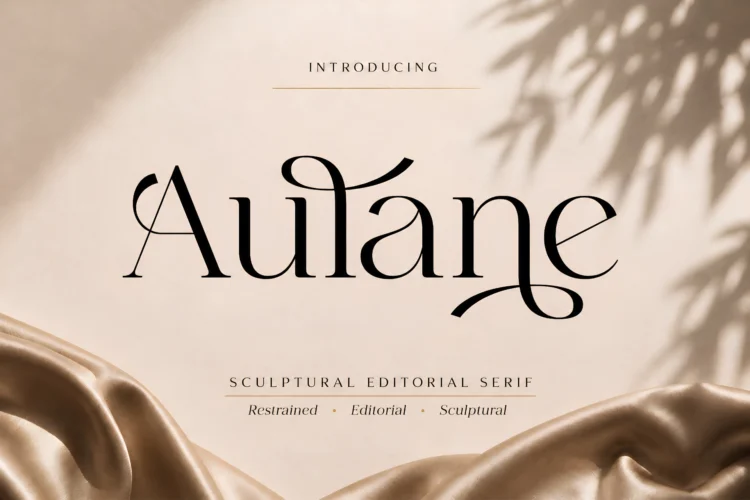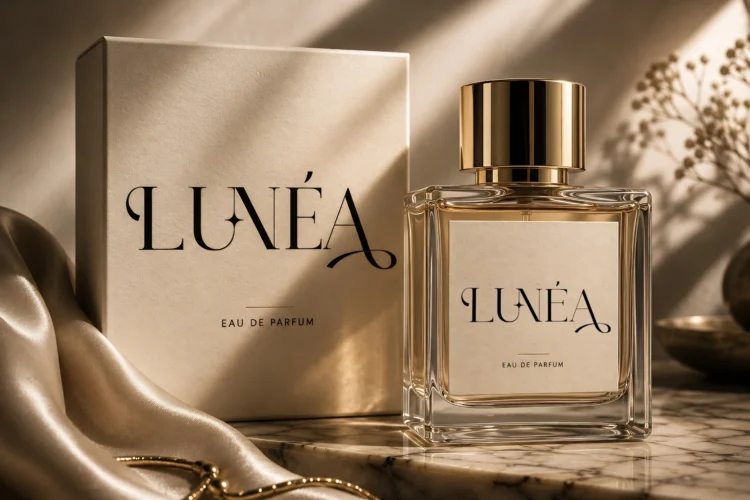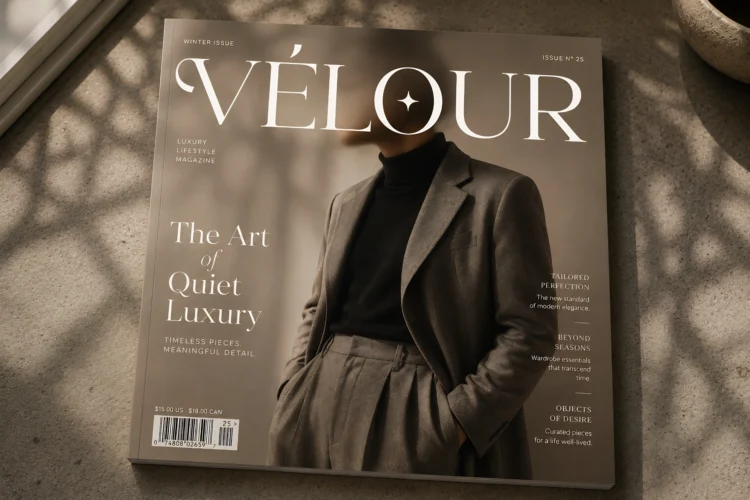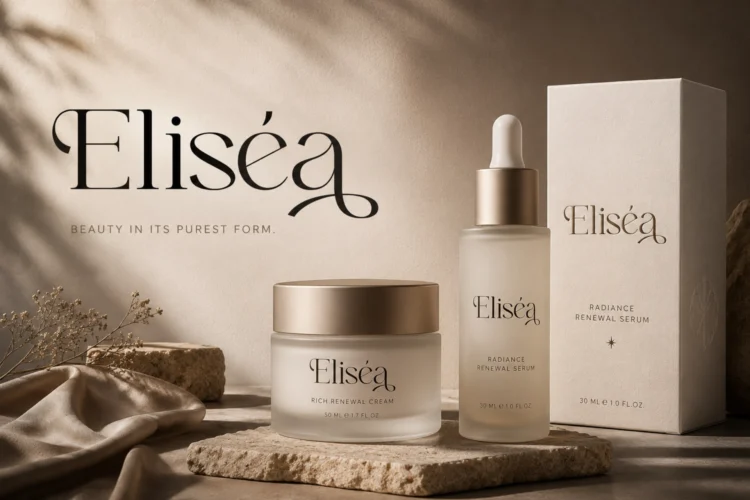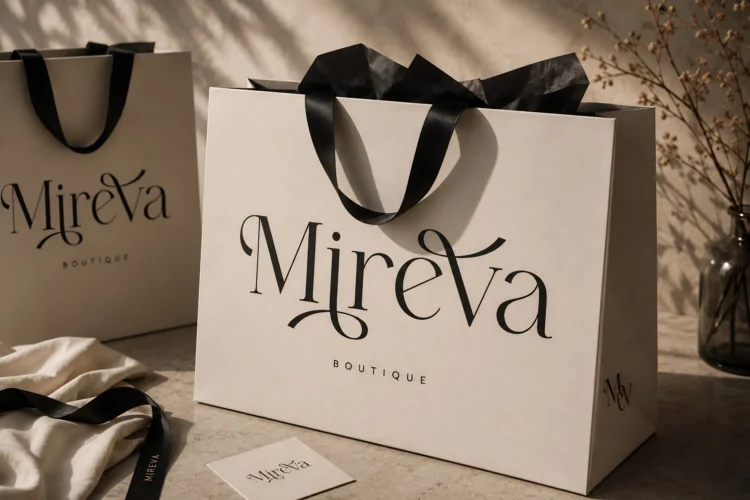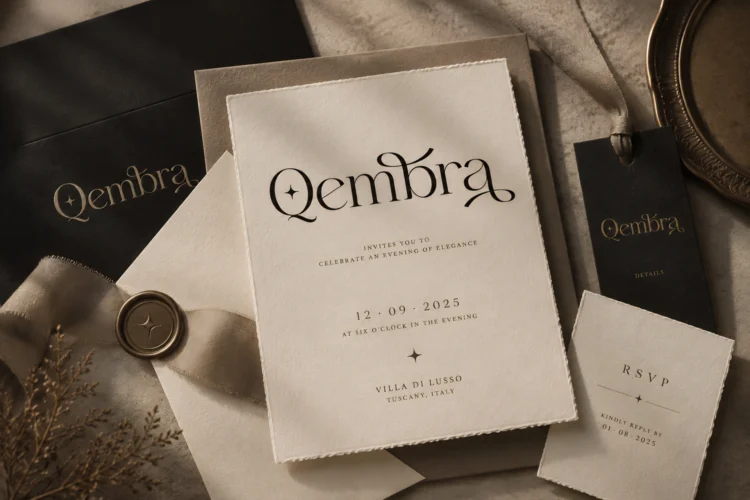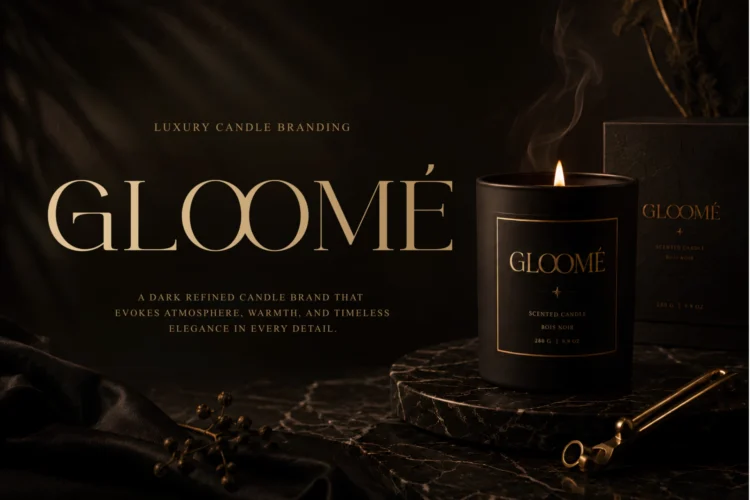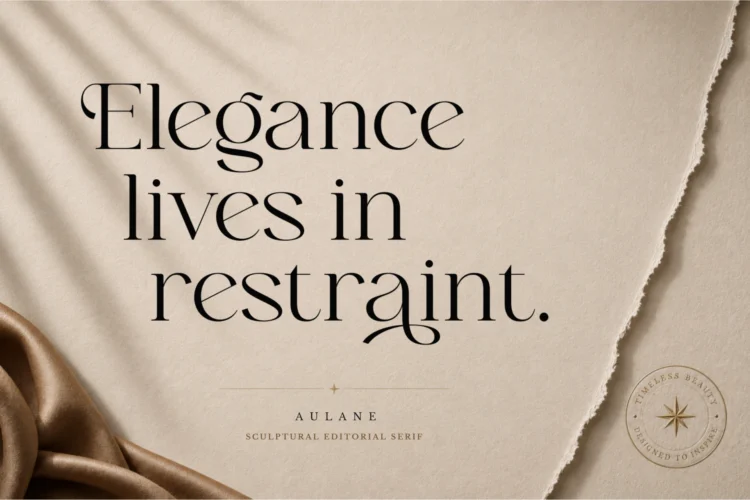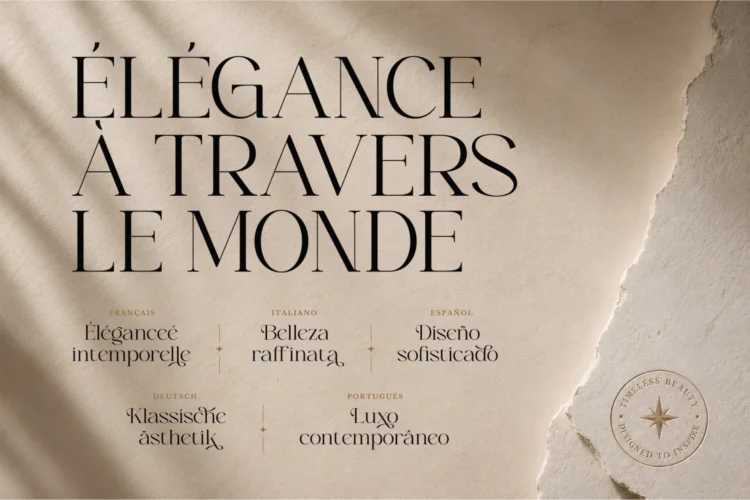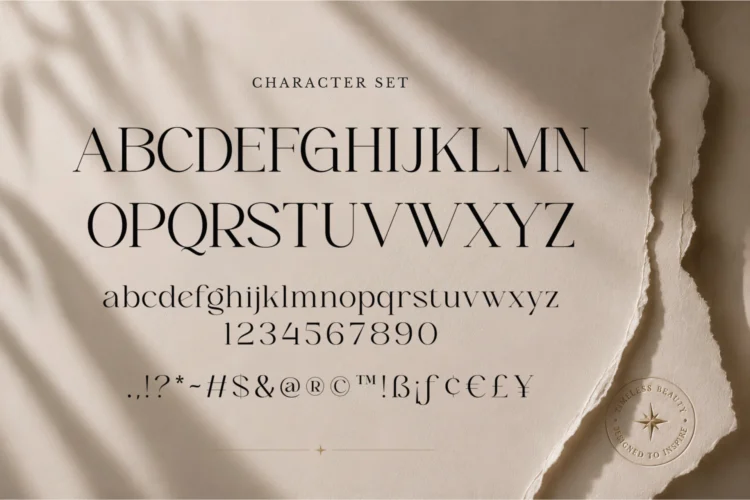
Aulane is a sculptural editorial serif font for brand identities, fragrance labels, beauty packaging, fashion campaigns, and refined product worlds.
Built with composed contrast, sculptural curves, expressive alternates, graceful ligatures, and swash details, Aulane works especially well as a branding font, logo font, packaging font, beauty font, fashion font, and editorial serif for projects that need atmosphere and quiet distinction.
More than a decorative display serif, Aulane helps create a complete brand world: a fragrance label with a restrained product voice, a beauty brand with refined packaging, a boutique fashion identity, or an editorial campaign that needs to feel considered, composed, and memorable.
Perfect For
- Fragrance branding
- Beauty and skincare packaging
- Boutique fashion identities
- Editorial headlines
- Magazine covers
- Candle and lifestyle products
- Logo design
- Refined product packaging
Features
- Uppercase and lowercase characters
- Numerals and punctuation
- Alternates
- Ligatures
- Swash characters
- OpenType features
- Latin-based multilingual support
Aulane is more than a display serif. It is a visual language for brands that value restraint, atmosphere, and thoughtful design.